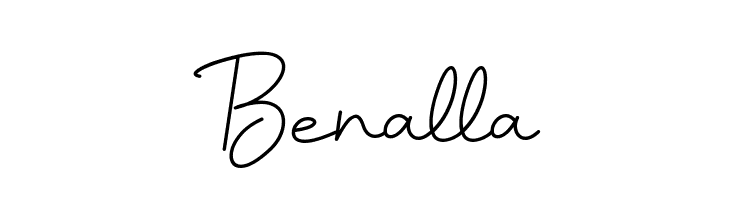
A playful, bold font with rounded, bubbly characters perfect for fun and engaging designs.
A playful, bold font with rounded, thick strokes and a whimsical touch.
A bold, condensed font with modern, sleek lines and high legibility.
A bold, geometric typeface with clean lines and strong visual impact.
A bold, playful font with thick, rounded strokes and a whimsical style.
A playful, rounded font with a hand-drawn, friendly appearance.
A playful, monster-themed font with bold, whimsical characters.
A playful, casual handwritten font with smooth, flowing lines.
A playful, casual handwritten font with smooth strokes and a friendly aesthetic.
A playful and bold font with thick, uniform strokes and rounded edges.
A bold, playful font with irregular, hand-drawn shapes and a whimsical style.
A bold, decorative font with a spooky and whimsical style.
A jagged, horror-themed font with sharp, irregular edges.
A spooky, jagged font ideal for horror themes.
A modern, elegant handwritten font with fluid, continuous strokes.
A lively and expressive script font with fluid, dynamic strokes.
A modern, geometric italic font with a double-line effect and dynamic style.
A modern, geometric font with a hollow, dimensional effect.
A bold, elegant script font with flowing curves and high contrast.
A bold, geometric font with a modern and dynamic style.
A bold, geometric font with a modern, layered design.
A bold, playful typeface with chunky, whimsical characters.
A bold, geometric font with a three-dimensional effect and clean lines.
A bold, playful handwritten font with thick, uneven strokes.
Bold, playful handwritten font.
A bold, geometric font with a modern, blocky style.
A bold, angular font with high contrast and geometric design.
A bold and expressive brush script font with dynamic strokes.
A bold, distressed font with a rugged, hand-crafted appearance.
( Fonts by DumadiStyle )
A bold, impactful font with thick strokes and a slightly condensed appearance.
( Fonts by DumadiStyle )
A bold, geometric stencil font with sharp, angular lines and cut-out sections.
A bold, outlined font with a modern and playful aesthetic.
A bold, shadowed font with thick, blocky letters and a three-dimensional effect.
A bold, shadowed font with a strong, three-dimensional look.
A playful, bold font with rounded, bubbly characters and a whimsical style.